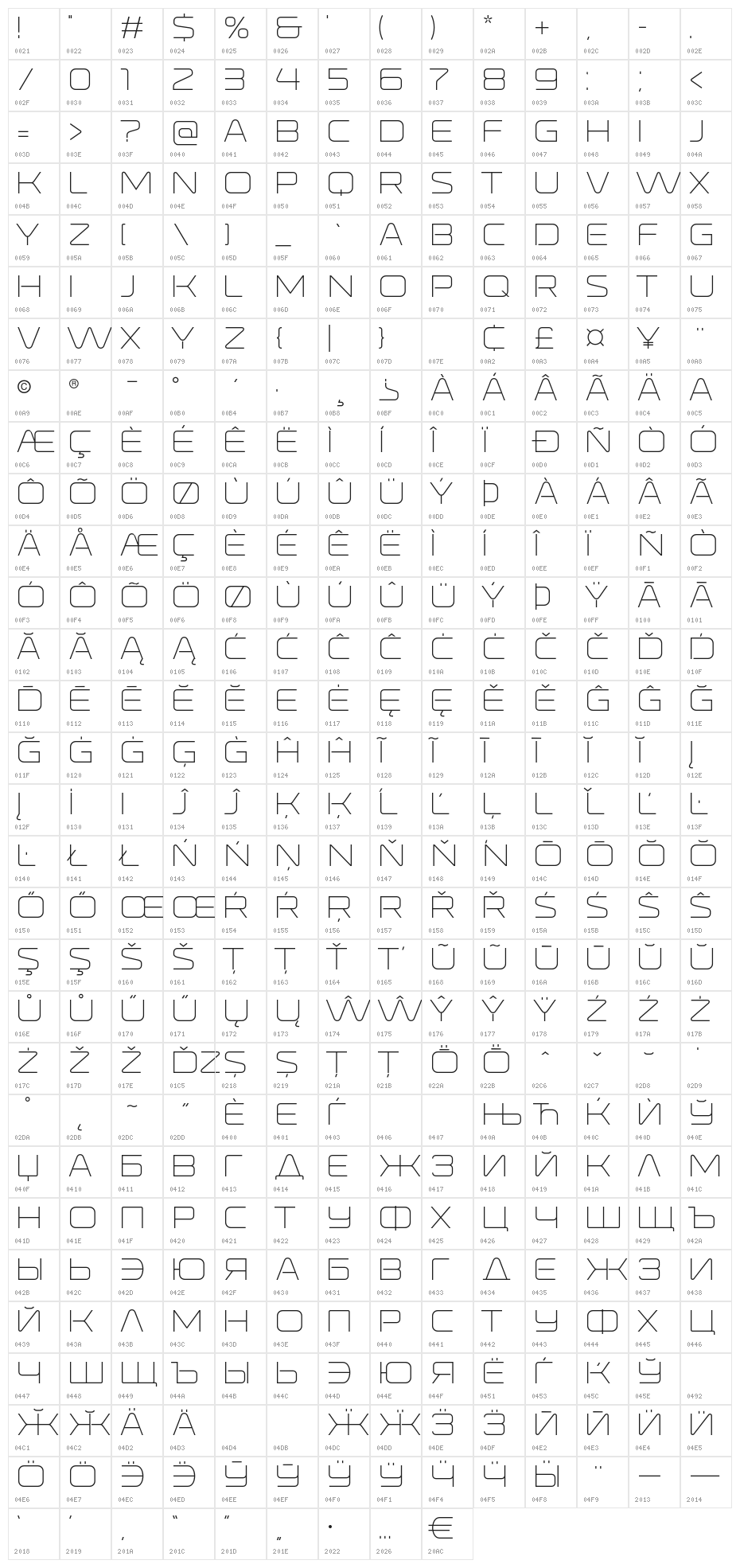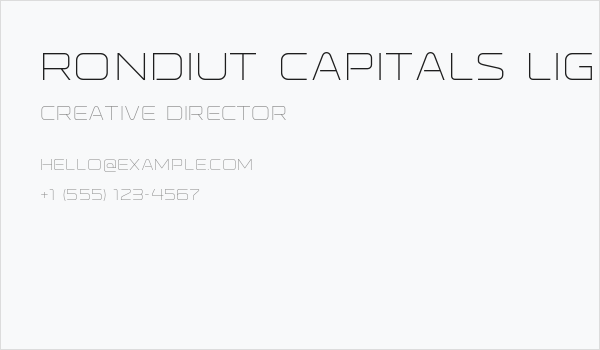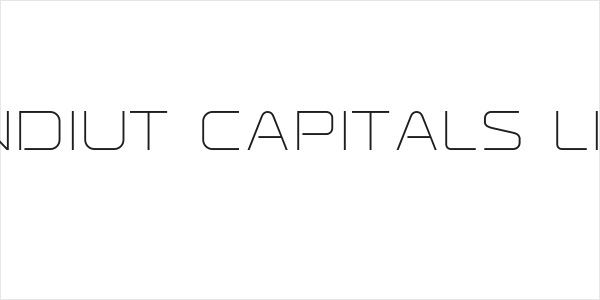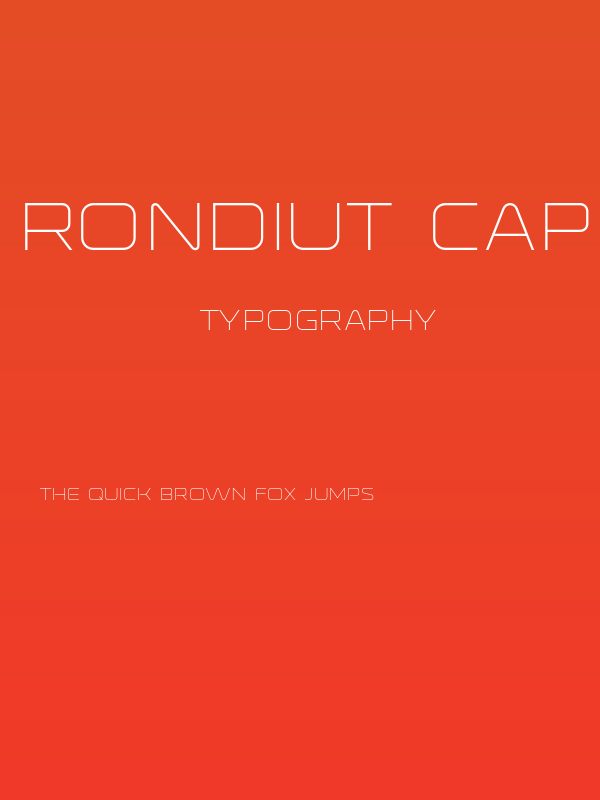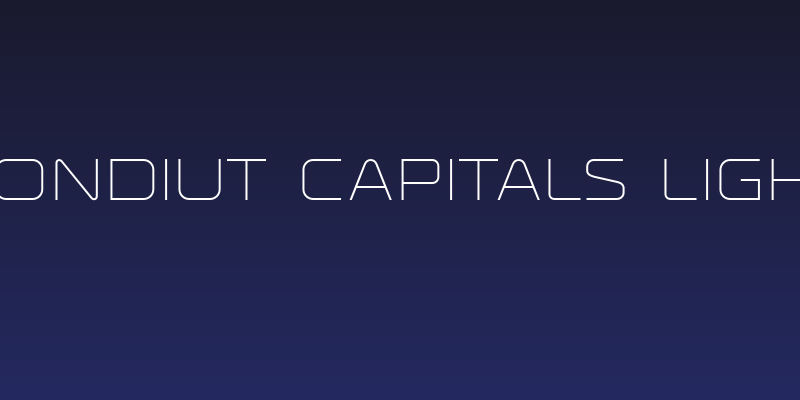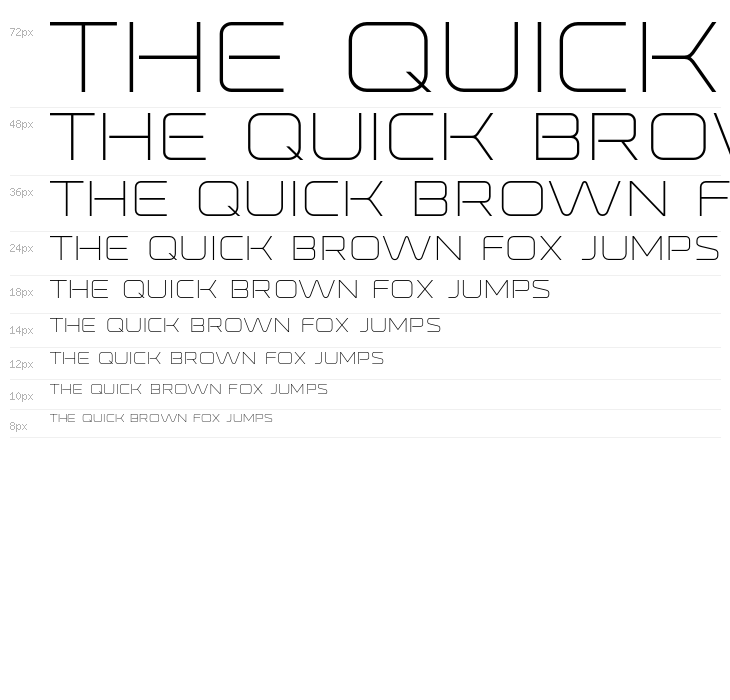
Rondiut Capitals Light Font
Rondiut Capitals Light Description
This font features a sleek, geometric design with clean lines and a modern aesthetic. Each character is crafted with precision, showcasing a uniform stroke width that contributes to its minimalist appeal. The uppercase letters are distinct and easily readable, making them suitable for a variety of design applications. The numerals and special characters maintain the same level of clarity and style, ensuring consistency across all text elements. The overall look is contemporary, with a hint of futuristic flair, making it ideal for projects that require a modern touch.
| Use Case | Headlines, Logos, Digital Interfaces |
| Proposed Projects | Ideal for branding, digital interfaces, modern advertising, and editorial design. |